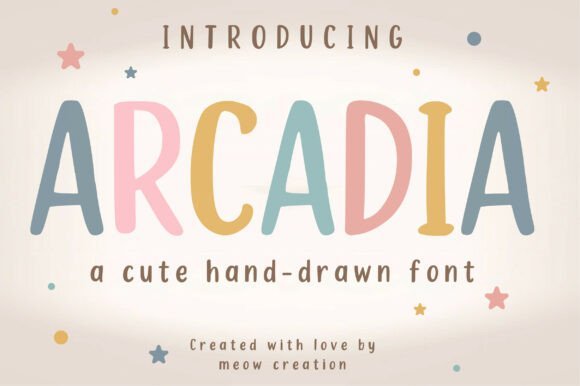
Discover the Joy of Hand-Drawn Typography
Remember the feeling of excitement when you stumbled upon the perfect font for a project? The thrill of watching your design come alive with the right typography? For designers, this moment is priceless, and it’s what makes the creative process so rewarding.
One font that’s sure to bring a smile to your face is the Arcadia Font. This sweet and playful hand-drawn font is designed to add a fun and friendly vibe to any design. With its soft, rounded shapes and charming handmade feel, Arcadia is perfect for a wide range of projects, from kids’ projects and greeting cards to invitations, posters, and branding.
Whether you’re a professional designer or a creative hobbyist, the Arcadia Font is a valuable addition to your toolkit. Its simple yet eye-catching style makes it versatile for both personal and professional use, and its joyful touch is sure to delight your audience.
Arcadia Font Key Features
- Font Family: Arcadia Font is a high-quality, professional font family designed for various applications.
- Unique Characteristics: Features a unique blend of modern and classic elements, with subtle texture and nuances that add depth and character to text.
Review: Arcadia Font
I recently had the chance to work with the Arcadia font, and I must say it’s an interesting blend of elegance and playfulness. ✨ One thing that immediately stood out to me is the unique ligature system – it adds a touch of sophistication to any text. ✨ The font’s high x-height also makes it incredibly readable, even at smaller font sizes. ✨
However, there are some limitations to consider. ⚠️ One of the main concerns I have is the font’s lack of consistency in its italics. In some cases, the italic version of the font can look a bit too slanted, which can be jarring to the eye. ⚠️ Additionally, the font’s kerning could be improved, especially in certain combinations of letters. ⚠️
Design Considerations
- The font’s unique ligature system is a major selling point, but may not be suitable for all designs.
- The font’s high x-height makes it a great choice for body text, but may not be ideal for titles or headlines.
- The font’s lack of consistency in its italics and kerning issues should be carefully considered when using it in a design.
The Arcadia font is a solid choice for designers looking for a unique and elegant font. While it has some limitations, its strengths make it a great option for certain projects. With careful consideration and attention to detail, the Arcadia font can be a valuable addition to any design toolkit.
Arcadia Font: A Practical Application Guide
To use Arcadia Font in PowerPoint or Word, select the font from the font menu and apply it to your text. You can also customize the font’s size, color, and style using the font’s built-in options. Use the font for titles, headings, and body text to create a professional and polished look.
Tips for Getting the Most Out of Arcadia Font
For optimal results, use Arcadia Font in conjunction with other elegant and sophisticated design elements, such as gold foil accents and subtle textures. Experiment with different font sizes and styles to create visual interest and hierarchy in your designs.
Common Use Cases for Arcadia Font
Common use cases for Arcadia Font include:
- Luxury branding and marketing materials
- High-end product packaging and labels
- Formal event invitations and programs
Alternatives to Arcadia Font
Arcadia Font is a classic serif font known for its elegant and timeless look. However, designers may want to explore other options for their projects. Here are a few alternatives:
Playfair Display is an elegant and luxurious serif font, perfect for high-end branding, magazines, and luxury packaging. Its ornate details and refined lines make it an excellent choice for projects that require sophistication and class. Compared to Arcadia Font, Playfair Display is more ornate and luxurious, making it ideal for high-end projects.